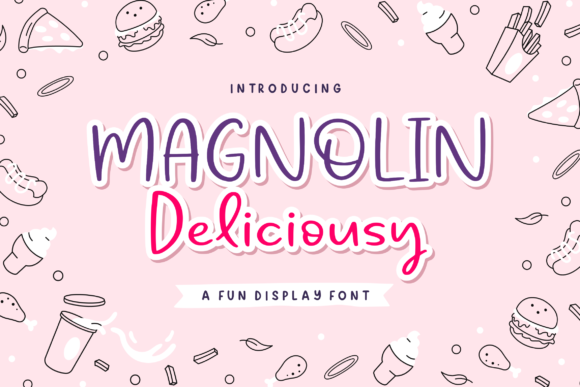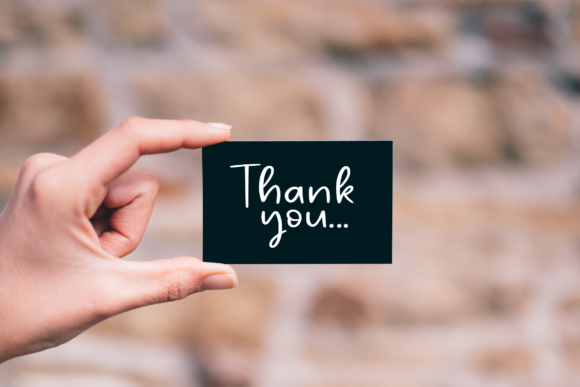
About Magnolin Deliciousy Font
Magnolin Deliciousy is a delightful and friendly handwritten font, radiating a cute and inviting charm. Its versatile nature makes it a perfect choice for a myriad of applications, including product packaging, branding projects, magazine covers, social media content, weddings, or simply to express words creatively against various backgrounds.
The font’s cute and friendly characteristics are immediately apparent, making it well-suited for projects that require a warm and approachable feel. Whether used to enhance product packaging, establish a unique brand identity, create eye-catching magazine covers, or engage audiences on social media, Magnolin Deliciousy adds a playful touch to your designs.
Magnolin Deliciousy’s adaptability makes it an excellent choice for expressing sentiments in wedding invitations or bringing a cute and friendly vibe to any creative endeavor. Its handwritten style adds authenticity and a personal touch, making it suitable for a wide range of design contexts.
Incorporating Magnolin Deliciousy into your design toolkit opens up possibilities for creating visually appealing and charming projects. Whether you’re crafting a brand image, designing for social media, or working on wedding materials, this font stands out as a cute and friendly companion that adds a touch of sweetness to your creations.
In summary, Magnolin Deliciousy goes beyond being just a font; it’s a cute and friendly design asset that enhances your creative projects. Its versatility, combined with its handwritten charm, makes it an ideal choice for those seeking to infuse warmth and approachability into their designs across various platforms.